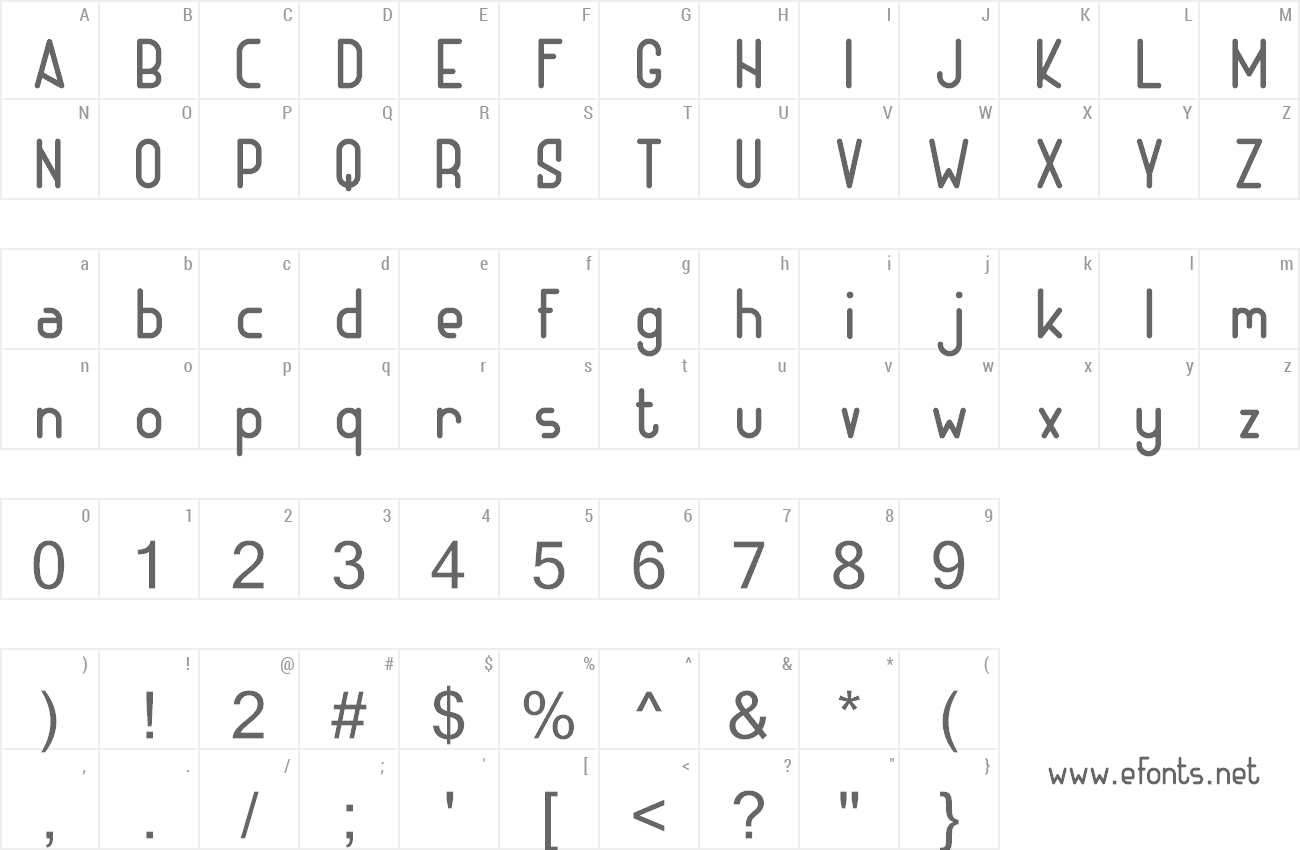
| Font name: | Adhe Sans |
| Author: | InspiraType |
| Note by InspiraType | |
"Adhe Sans" is a font display is made by hand, inspired by classic posters. comes with uppercase, lowercase, numerals, punctuations and so many variations on each characters include opentype alternates, common ligatures and also additional swash to let you customise your designs. Perfect to use for Logotype, Letterhead, Poster, Apparel Design, Label and etc. |